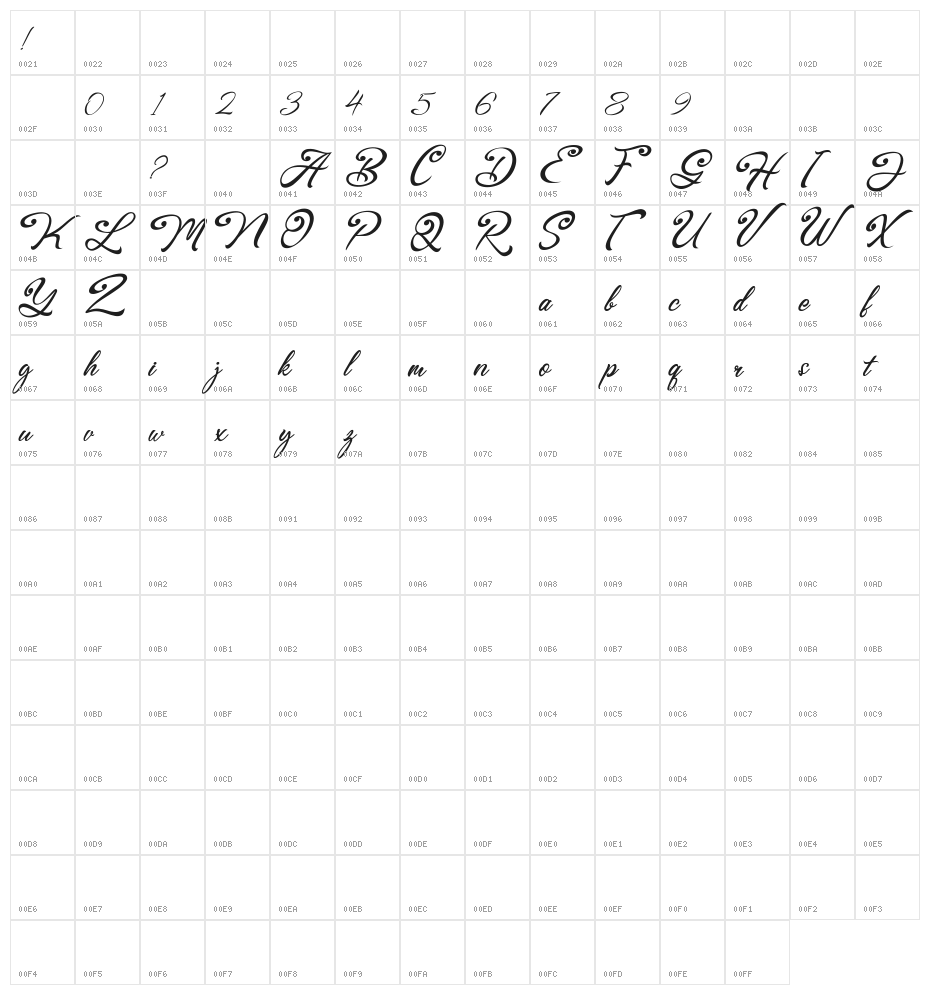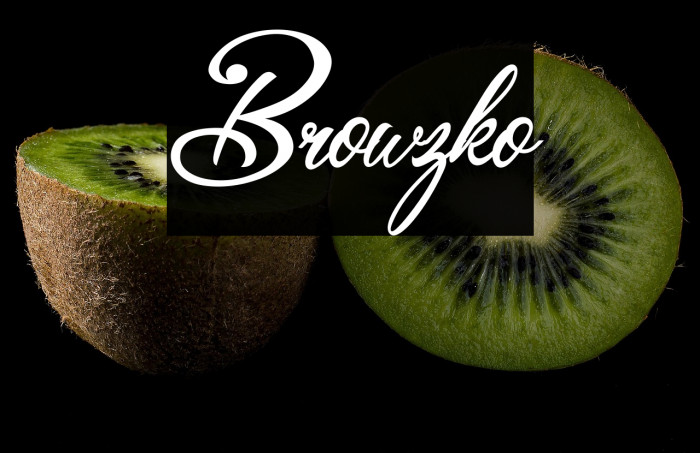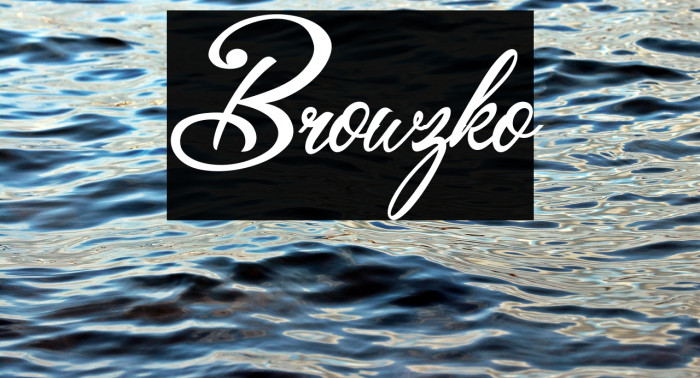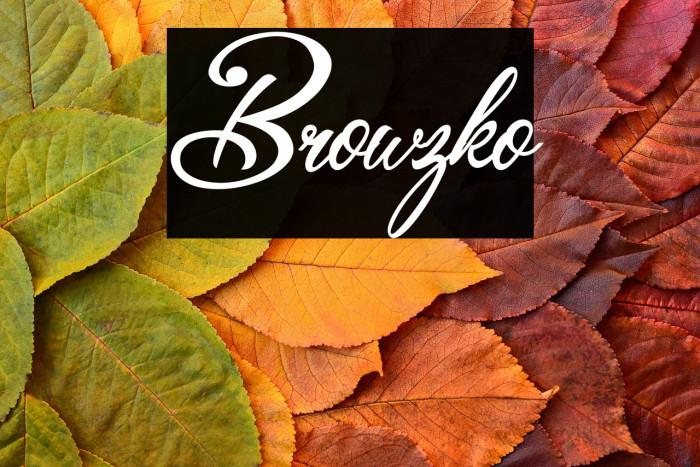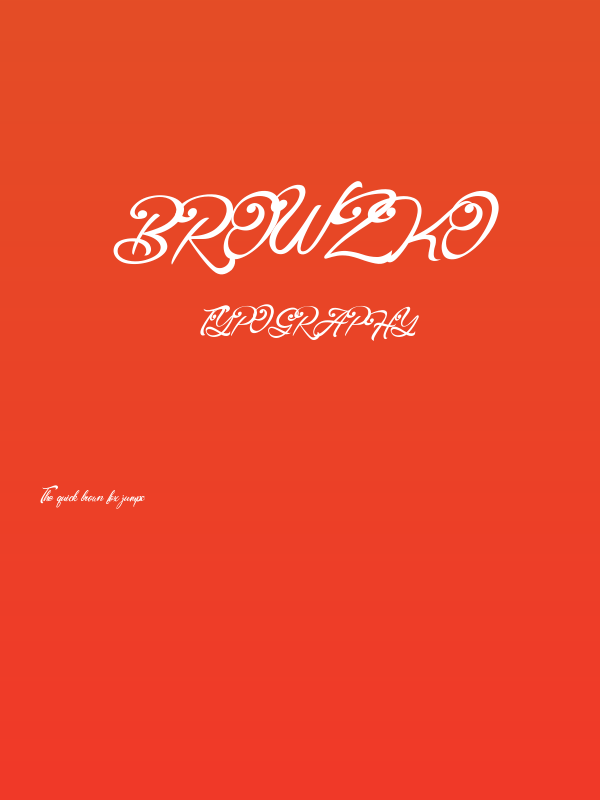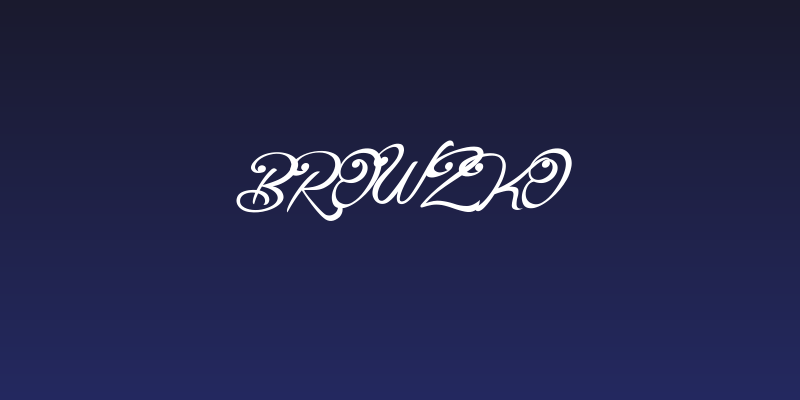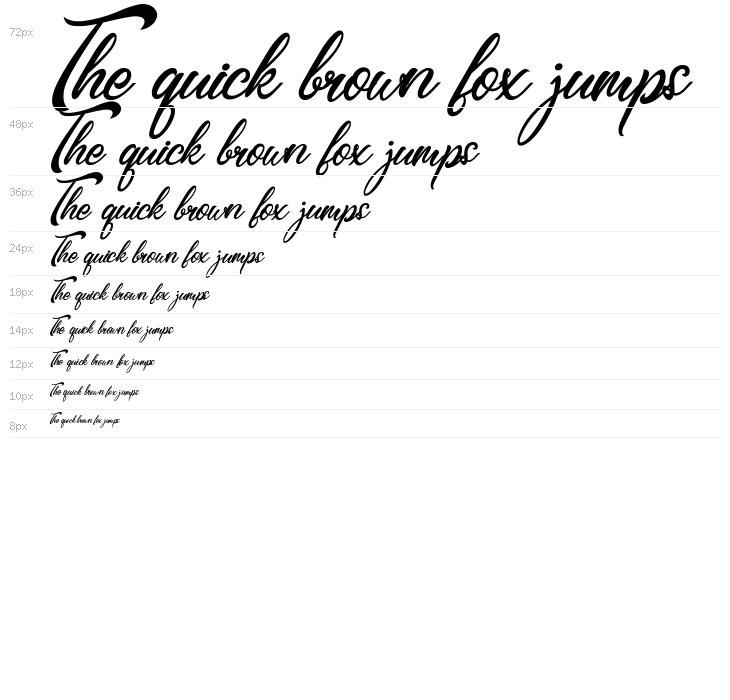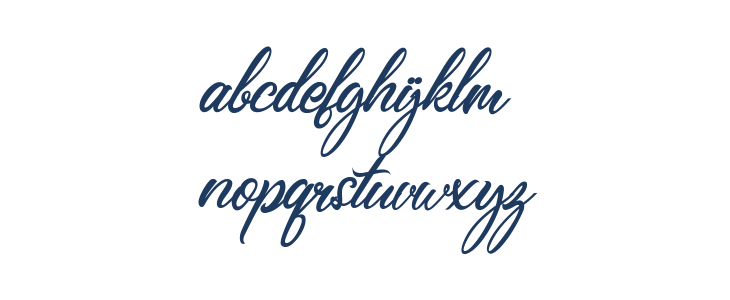
Browzko Font
Browzko Description
This elegant script font features a flowing, cursive style with intricate loops and swashes, giving it a sophisticated and decorative appearance. The uppercase letters are particularly ornate, with exaggerated curves and flourishes that add a touch of luxury and refinement. The lowercase letters maintain a consistent style, with smooth, connected strokes that enhance readability while preserving the font's artistic flair. The numerals are designed to complement the letters, featuring similar curves and a graceful aesthetic. This font is ideal for projects that require a touch of elegance and class, such as wedding invitations, formal event programs, or luxury branding. The overall design is both timeless and versatile, making it suitable for a variety of applications where a classic yet stylish look is desired.
| Use Case | Logos, Headlines |
| Proposed Projects | Wedding invitations, luxury branding, formal event programs. |